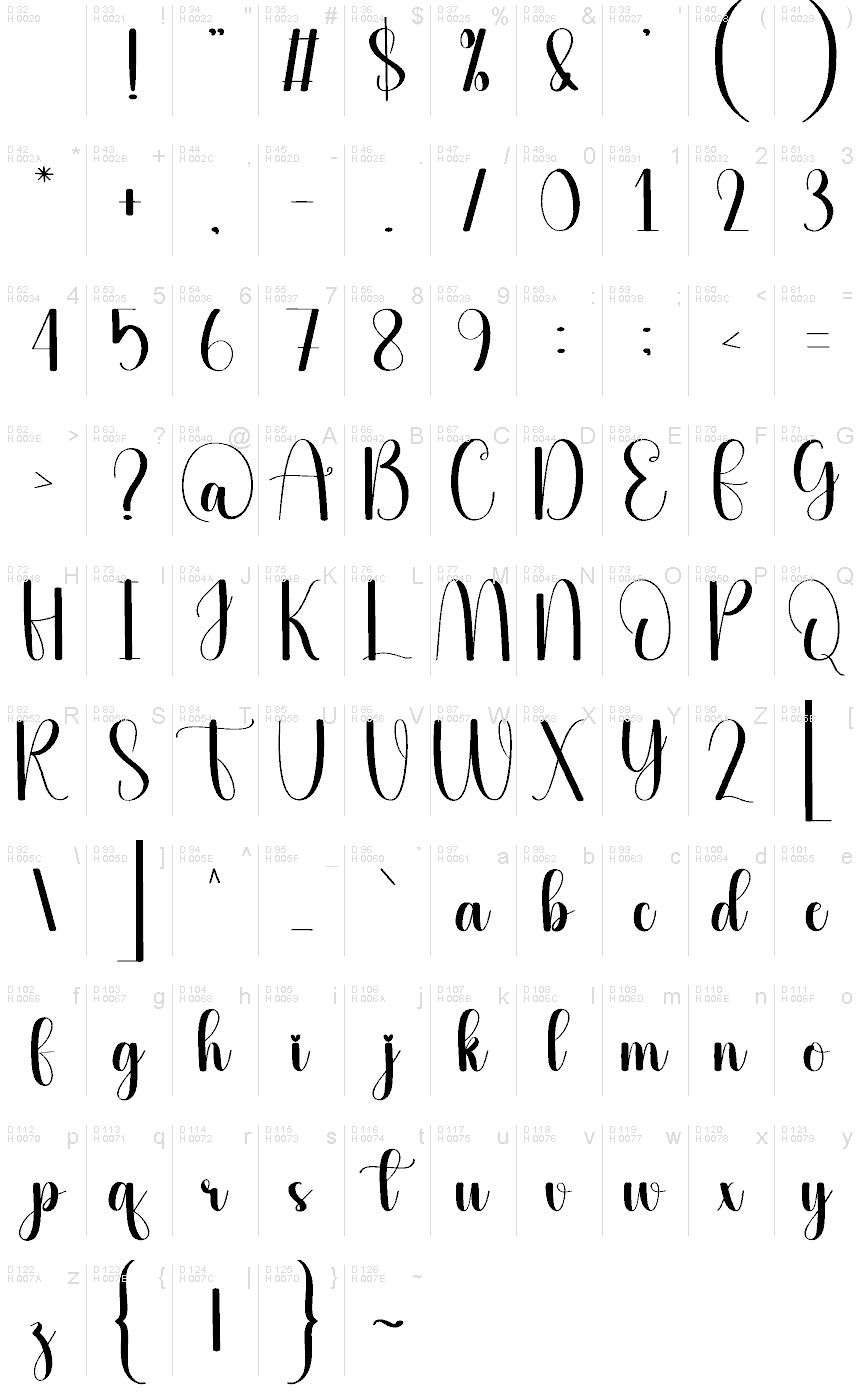
Openbook
Openbook font by Scratchones is a free calligraphy font with elegant, flowing curves and expressive strokes. This sophisticated display typeface was crafted as a beautiful modern interpretation of script fonts and is a perfect embodiment of grace and charm. Made for best use in big bodies of text, Openbook will grab all possible attention when properly utilized.